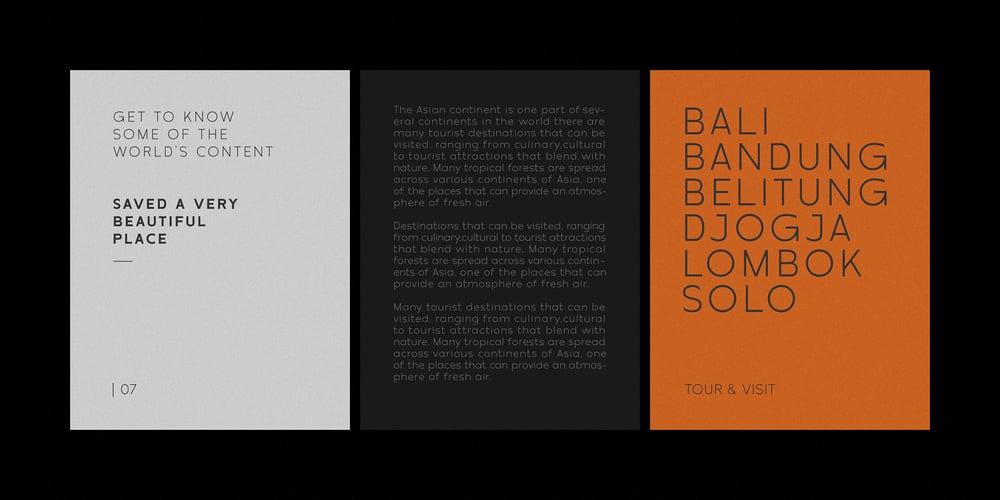
Misegar Font Family was designed by Darhilen and published by Owl king project. Misegar contains 20 styles and family package options. Creambelly is a clean and slim sans-serif font. It is perfect for product packaging, branding project, magazine covers, social media, logotypes, or just used to express words above the background.